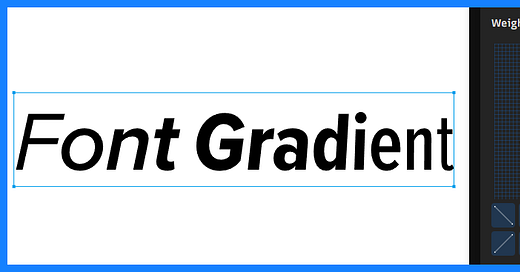
When Letters Dance
My passion is to breathe life into letters, turning them into stories that captivate. But there’s a world beyond basic text—advanced techniques like OpenType and variable fonts unlock a realm of potential for creating standout logos. The challenge? These powerful features have been locked behind complex tools. My mission is to change that, making it easy for anyone to unlock their creative potential.
The Mountain Doesn’t Move: My Philosophy
Imagine you’re standing at the foot of a vast mountain—the mountain of designing something meaningful. This mountain poses the same challenge for the novice as it does for the expert. It doesn’t matter if you’ve climbed a hundred mountains or if this is your first; the challenge before you remains unchanged. The peak does not lower itself for beginners.
I believe that the task—the mountain—shouldn’t be made smaller to accommodate those who are new to the climb. Instead of flattening the mountain, I aim to equip our climbers. My goal is to make pro-level features like OpenType ligatures and font variations accessible and easy to use for everyone.
At Typogram, my mission is to bridge the skill gap without changing the goalposts. This means making pro-level features accessible and easy to find. I believe in smartening our users up, not dumbing the task down.
The Path Less Traveled: Innovating at Typogram
The ability of variable fonts to offer continuous change fascinates me—imagine a font that evolves as you read, creating a dynamic, living text. This exploration birthed the concept of the Font Gradient, a feature now live on typogram.co. I encourage you to experience it, even with a free plan, and see how it transforms your designs.
I’m also in the process of enriching Typogram with a wider range of fonts from The Type Founders. These high-quality fonts come alive with hidden glyphs and features via OpenType, offering a treasure trove of design possibilities:
These premium OpenType fonts inspired me to develop Ligatures and Substitutions further. OpenType features are like hidden gems, offering alternative glyphs for letters that make your text uniquely beautiful. Here’s a sneak peek of what I’m working on: making the unseen seen and the complex simple: